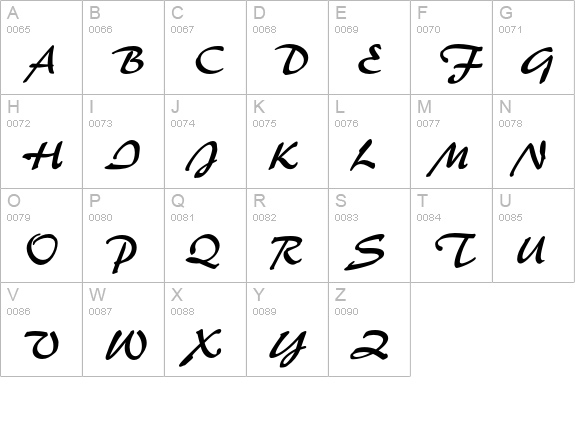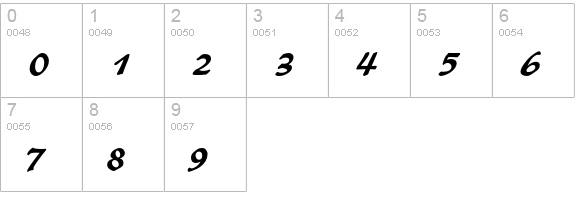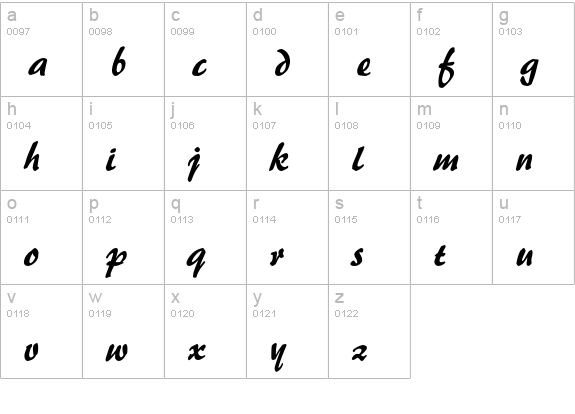
Brush 455 font is a stunning display typeface that exudes elegance and a touch of whimsy. Its unique brush strokes give it a handcrafted feel, making it perfect for a variety of design projects. This font is free to download at FontsMarket.com, allowing you to easily incorporate its charm into your creations without any cost. Whether you're designing posters, signage, invitations, or branding materials, Brush 455 font will surely add a creative and artistic flair to your work. Embrace the free-spirited nature of this font and let your designs stand out with its captivating style.